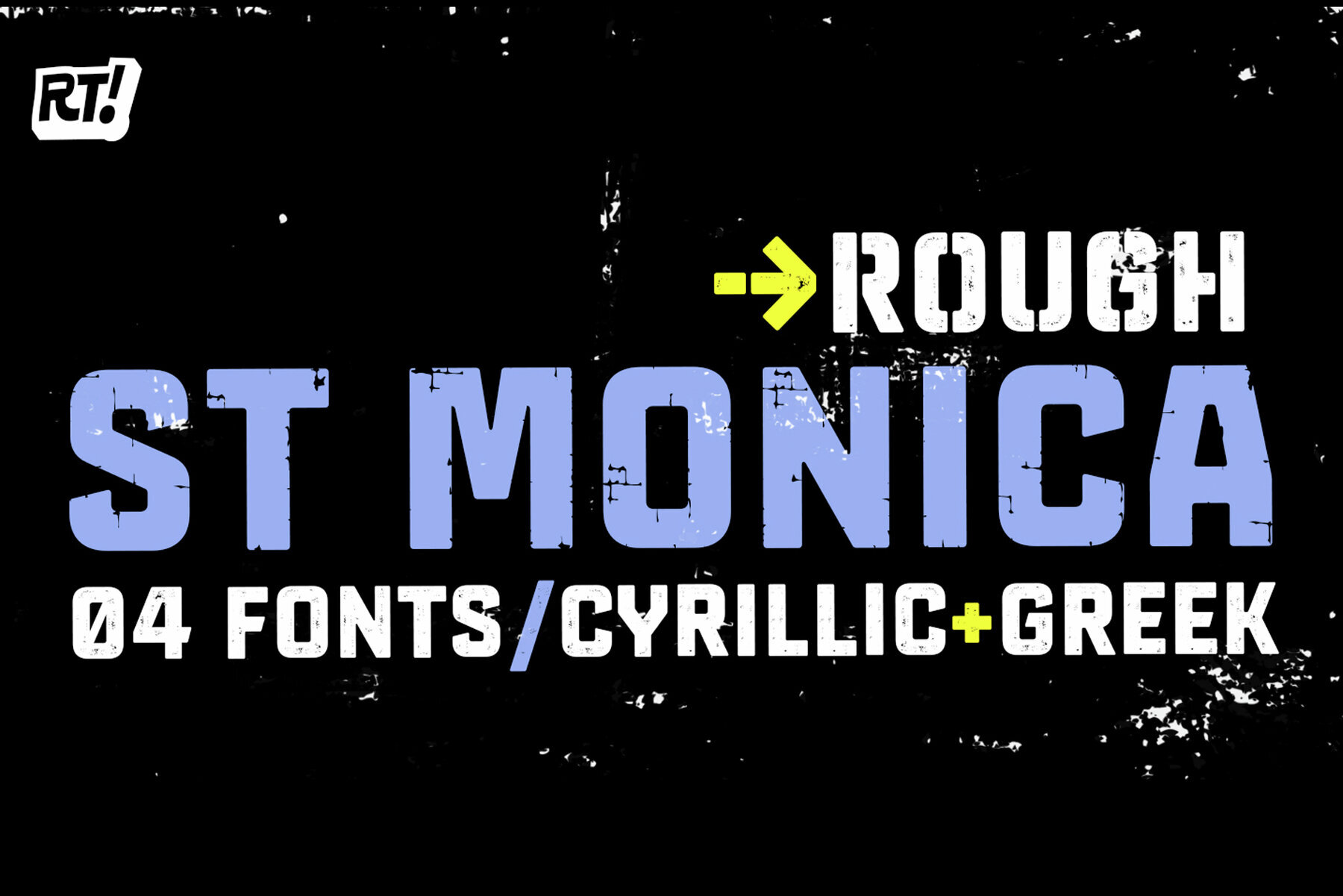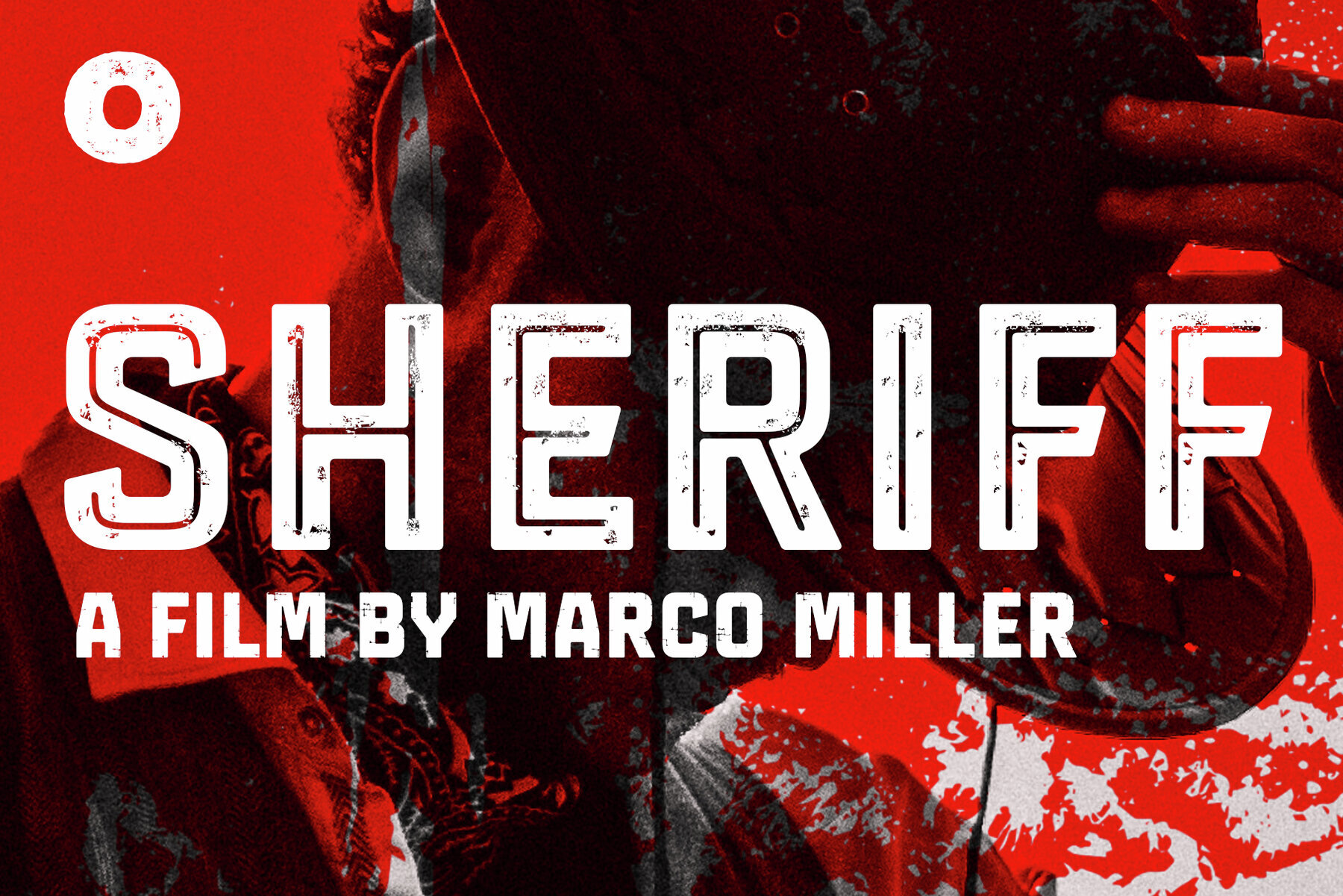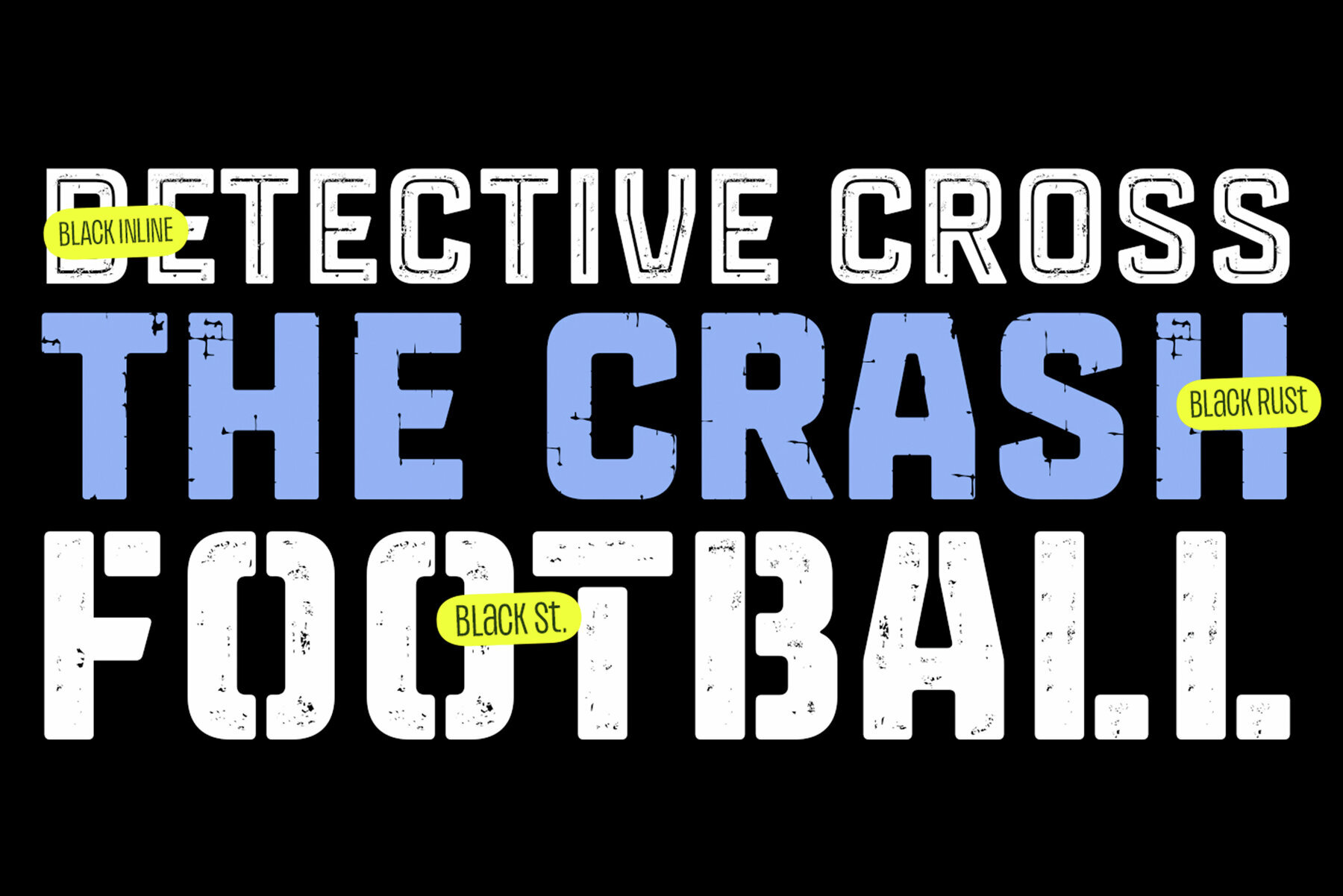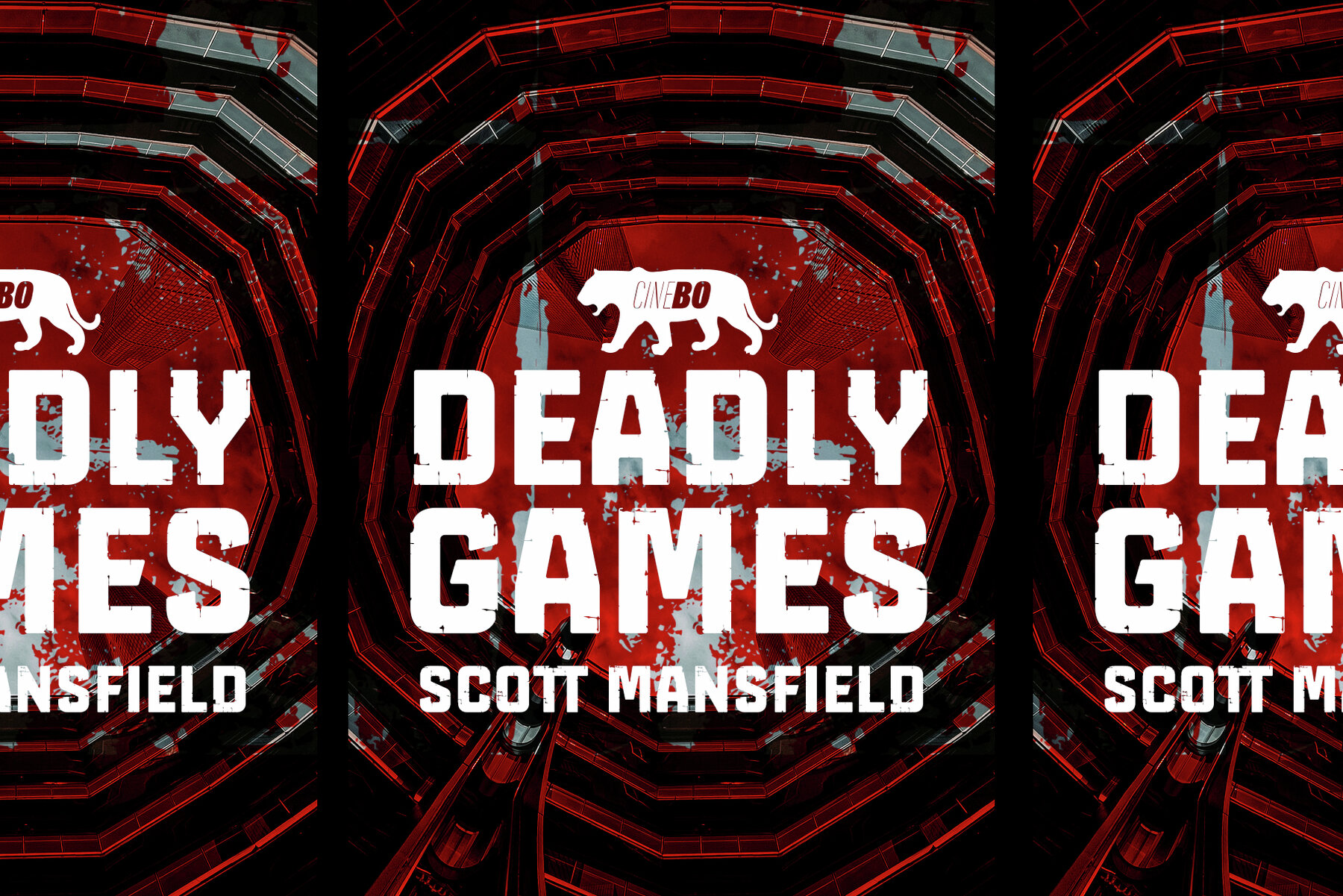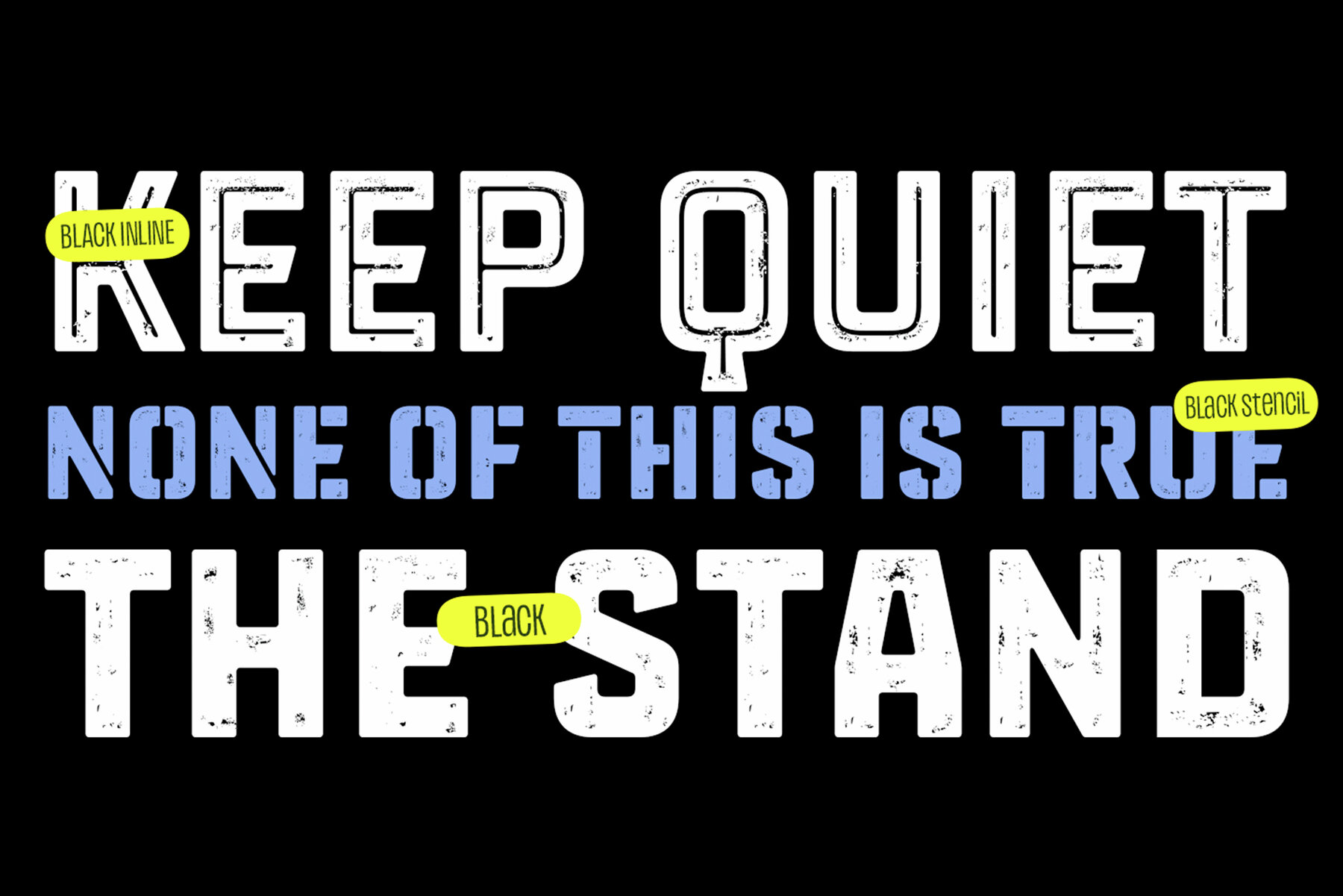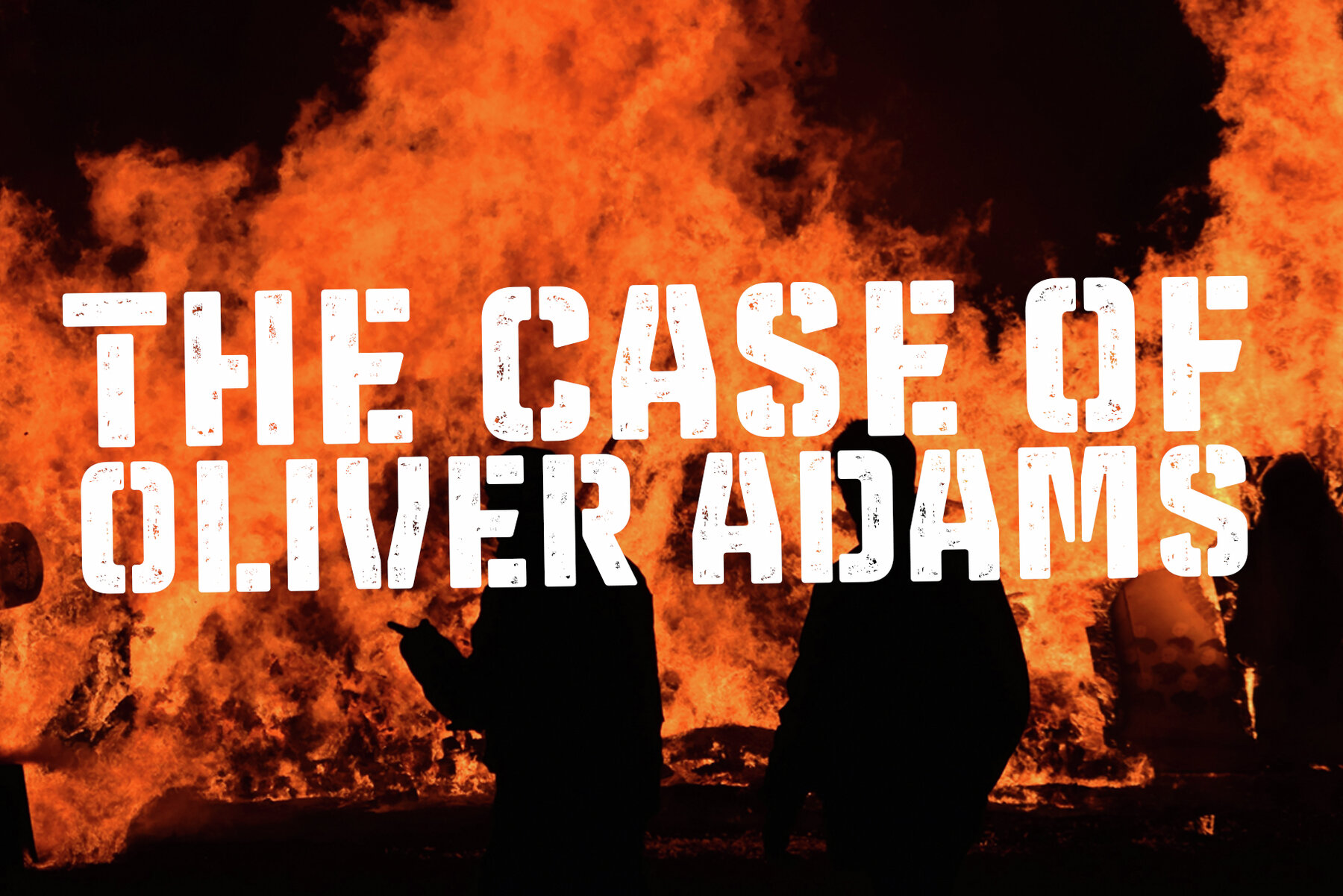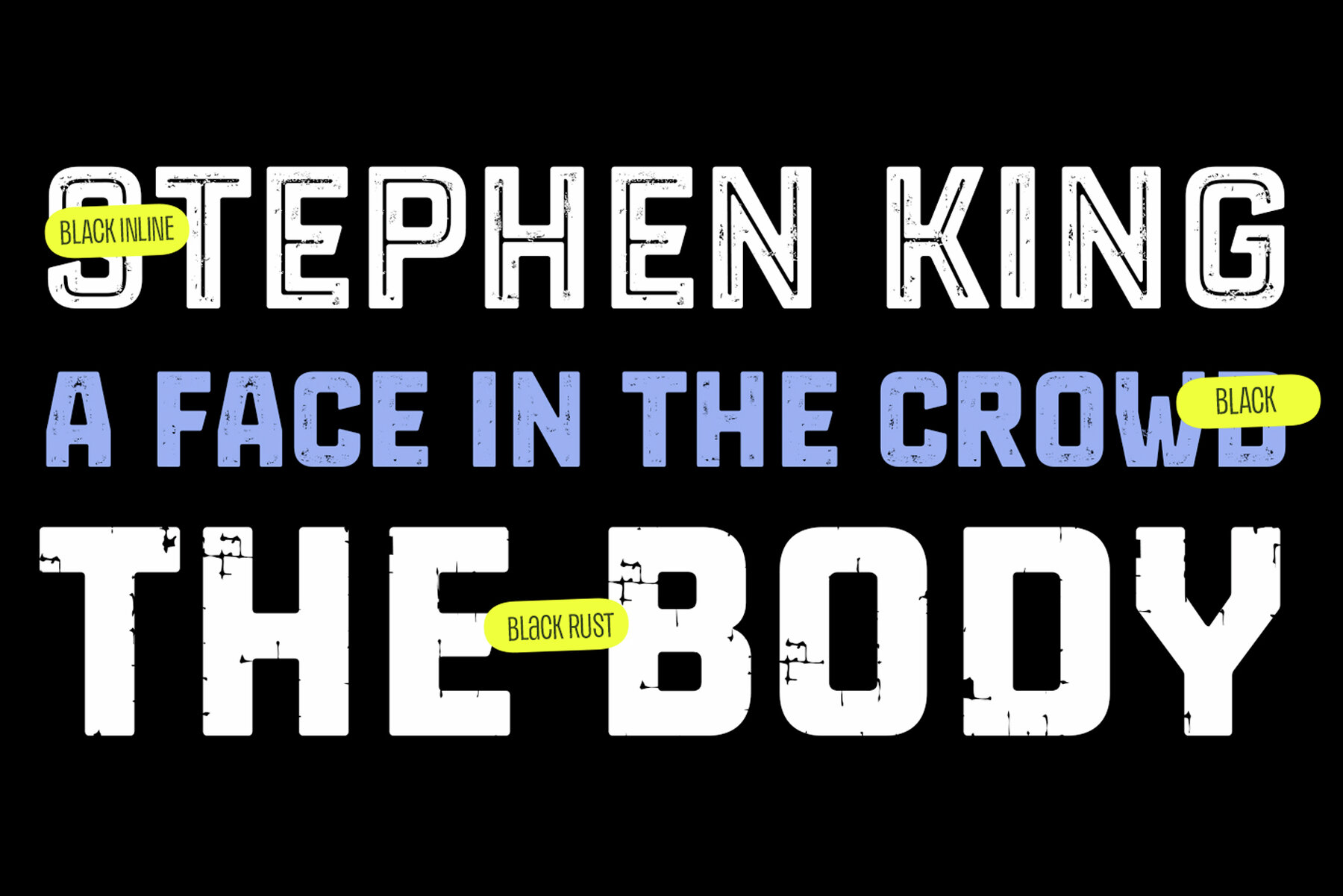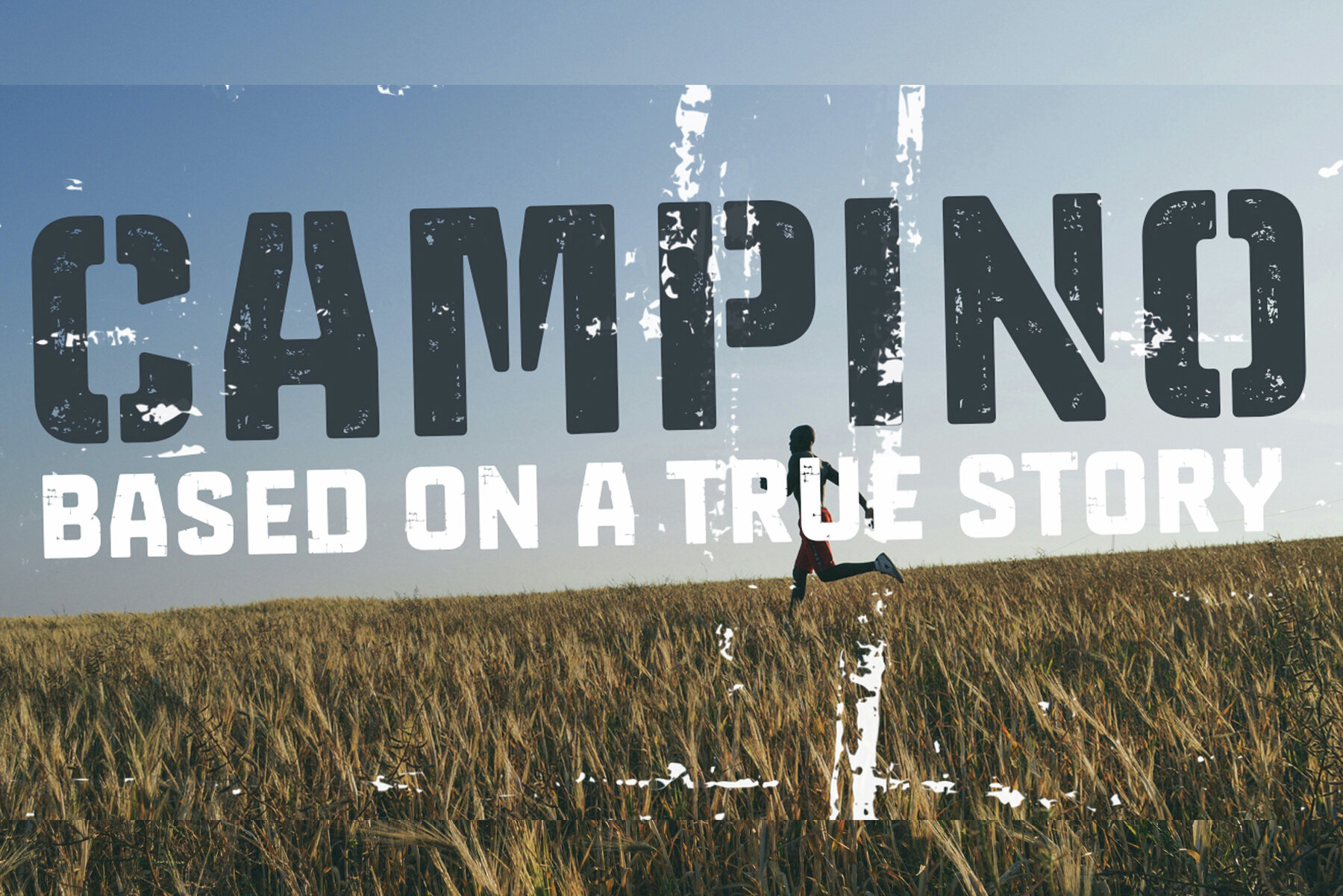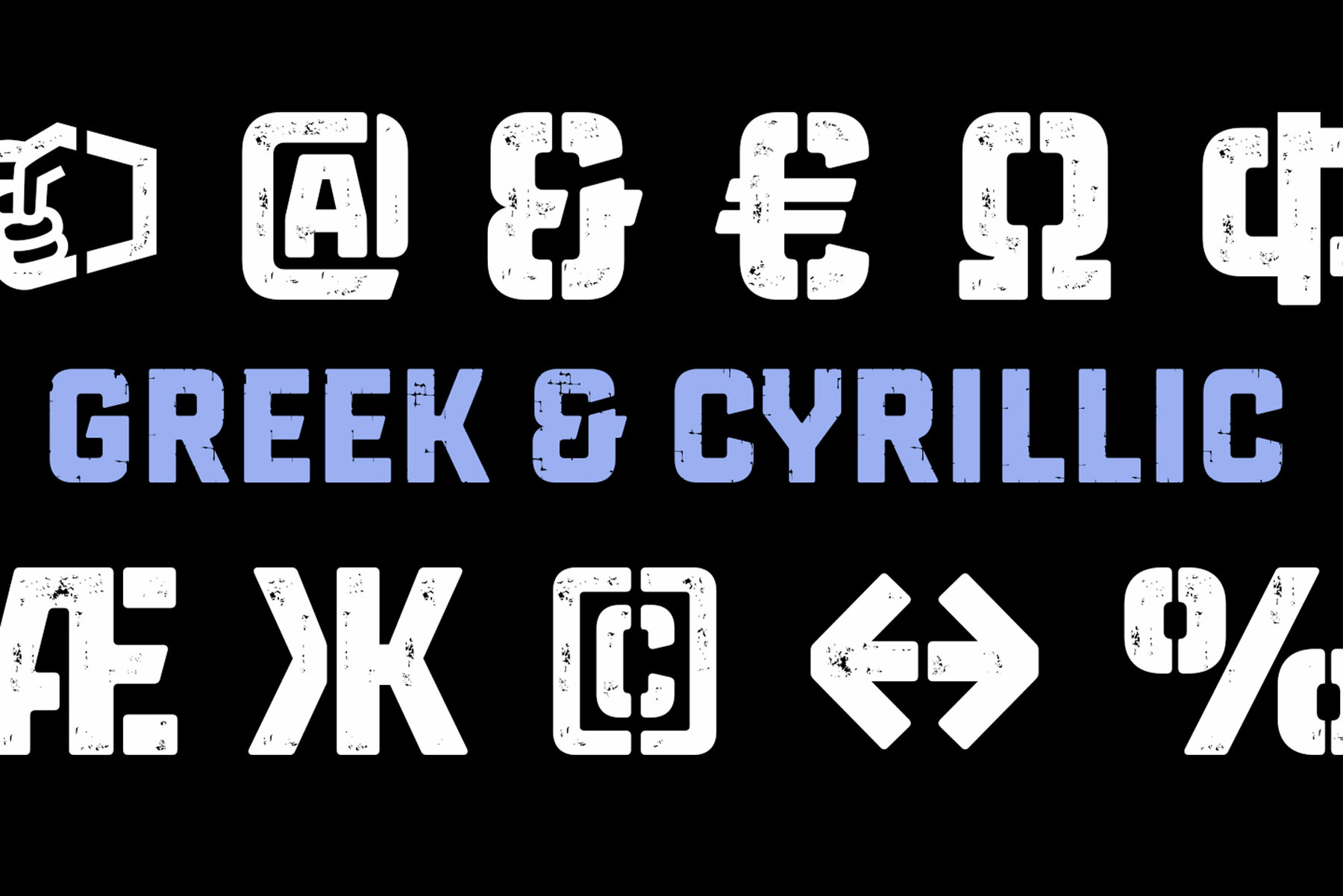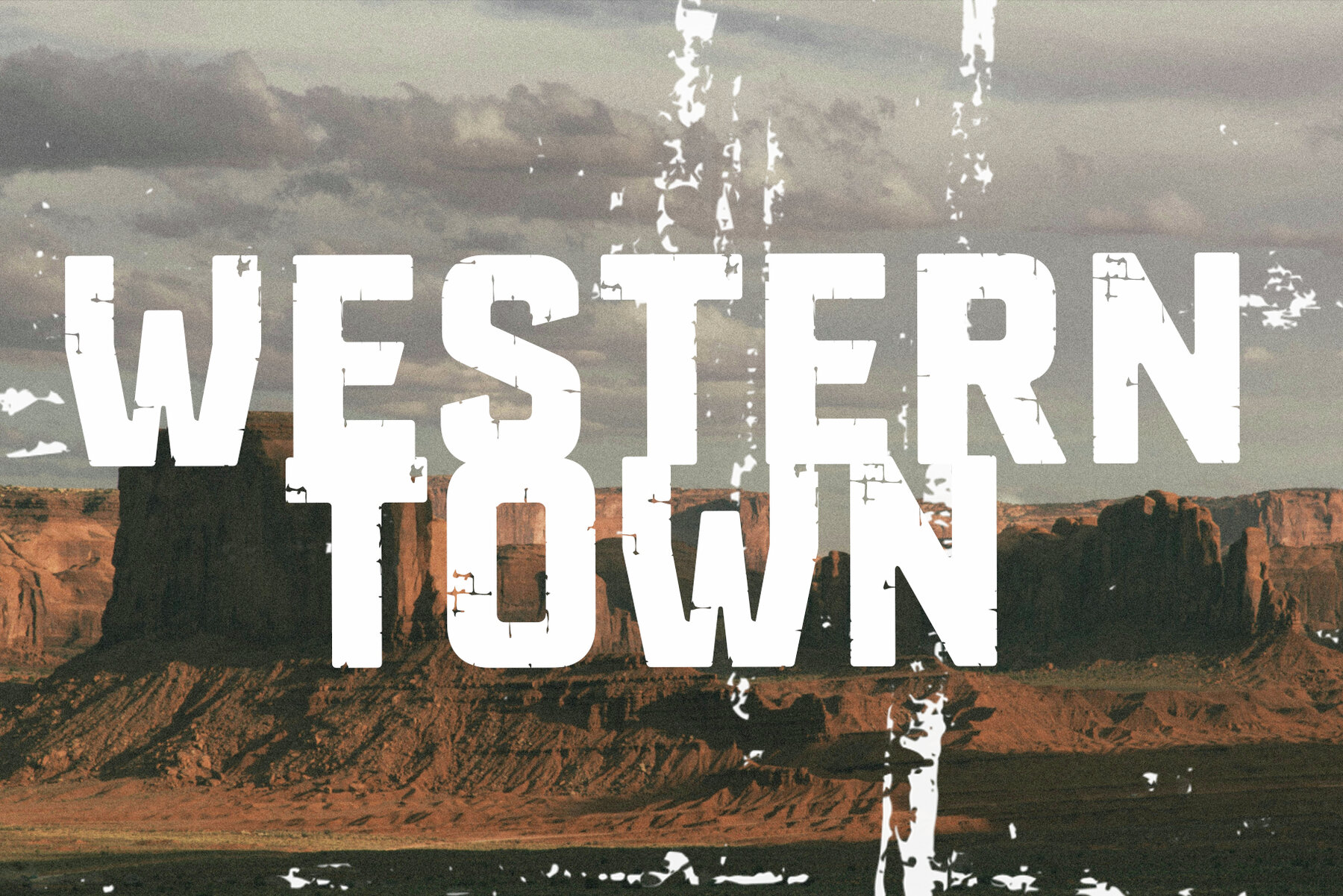
St Monica Rough Font
St Monica Rough Black
St Monica Rough Black Inline
St Monica Rough Black Rust
St Monica Rough Black Stencil
St Monica Rough takes the classic St Monica typeface and infuses it with texture and edge, making it ideal for high-impact titles in action and suspense-driven projects. This version offers a unique blend of rough-hewn aesthetics while maintaining legibility and style. Features:St Monica Rough: A Gritty Typeface for Dynamic Titles